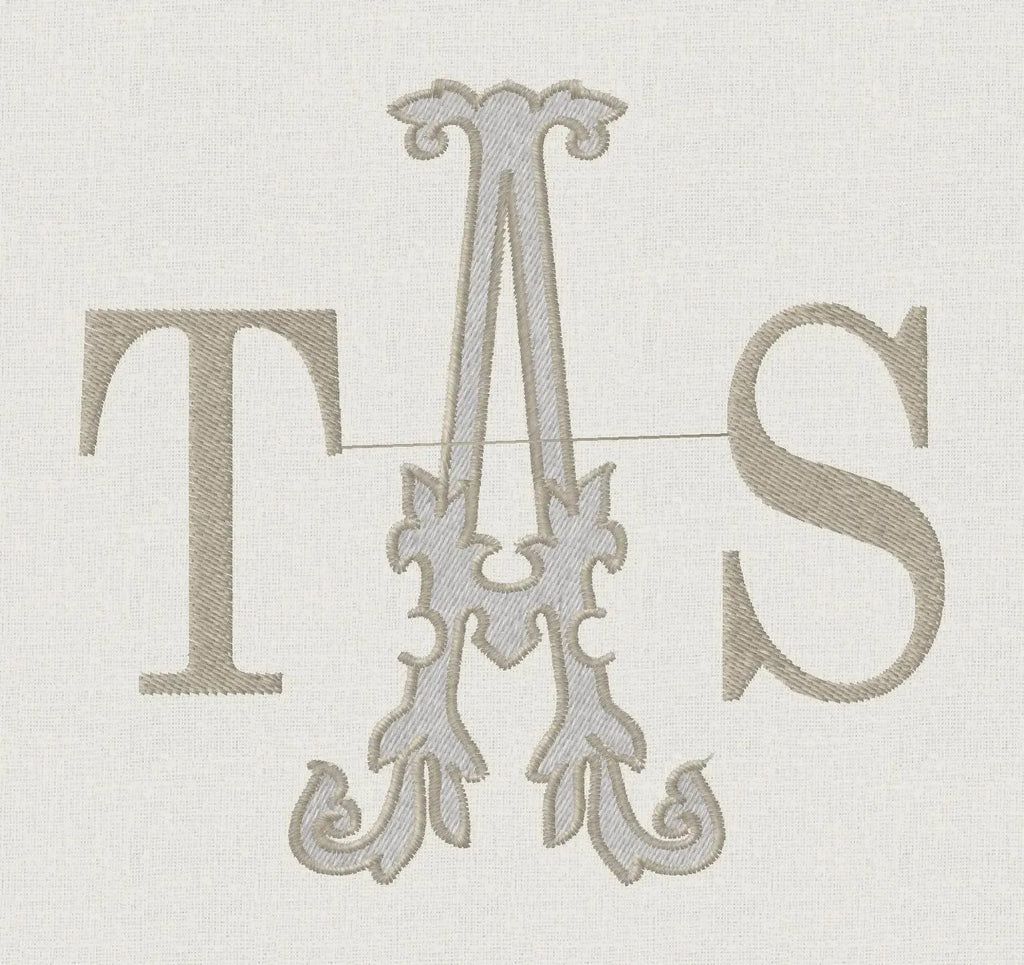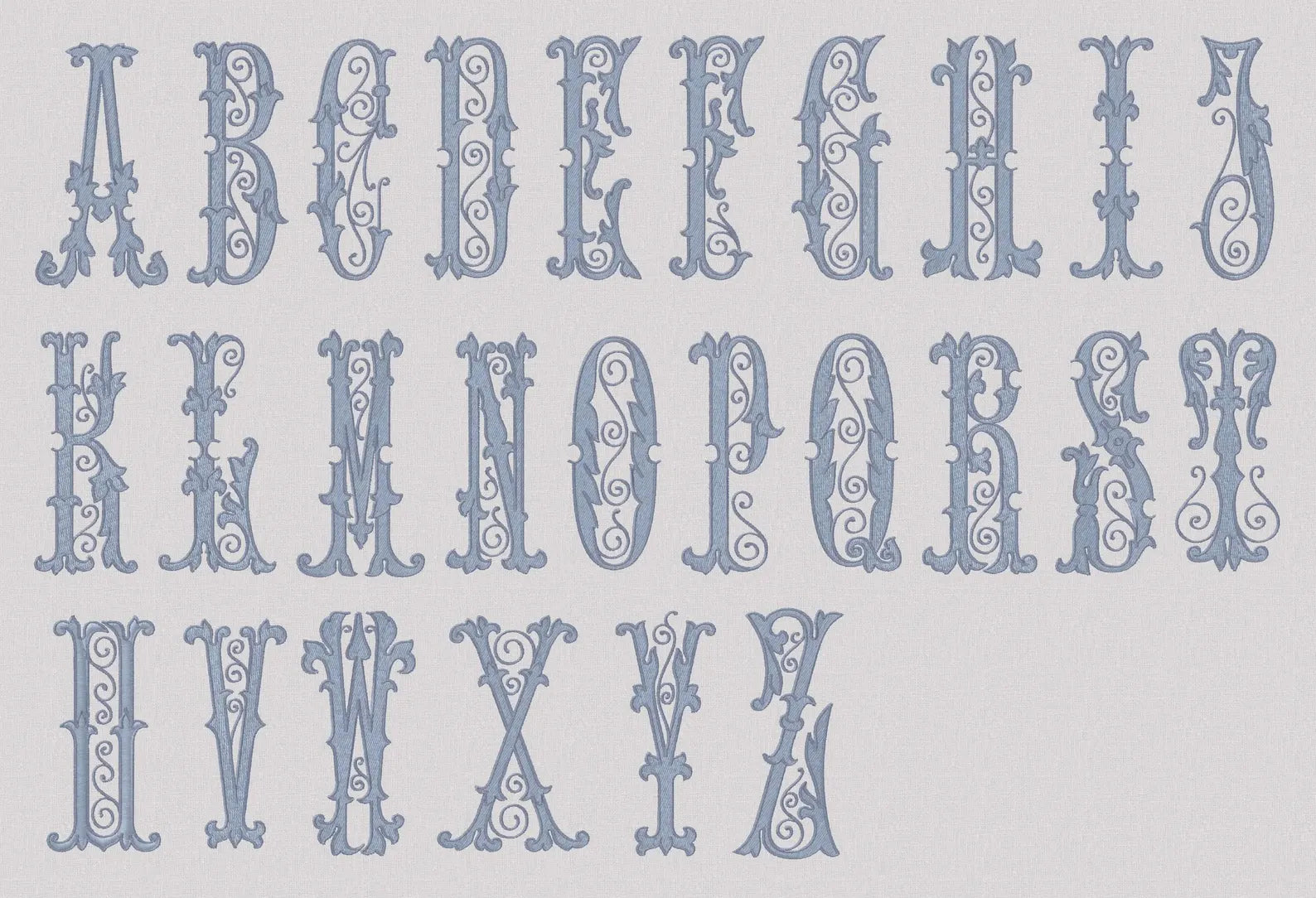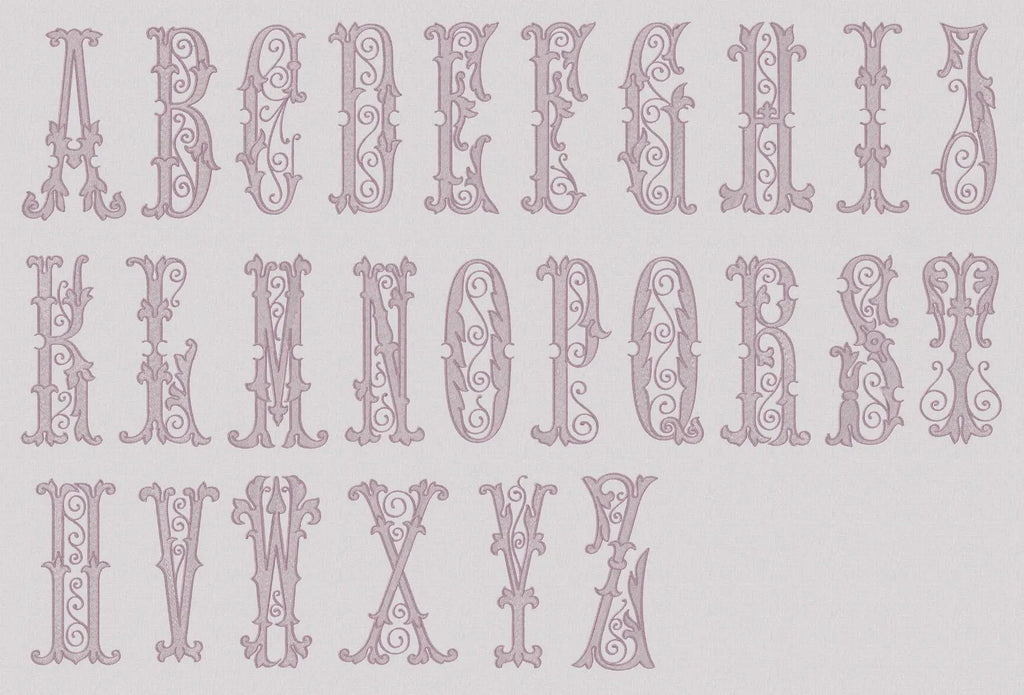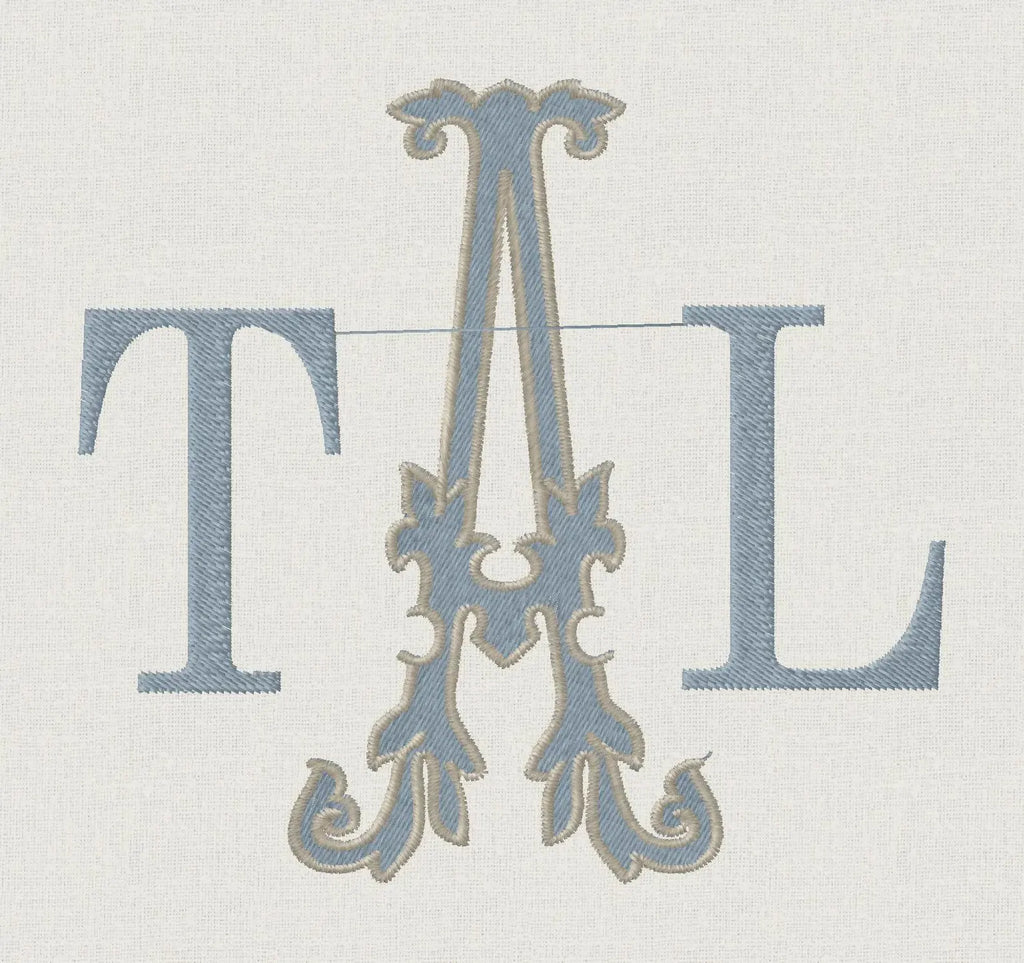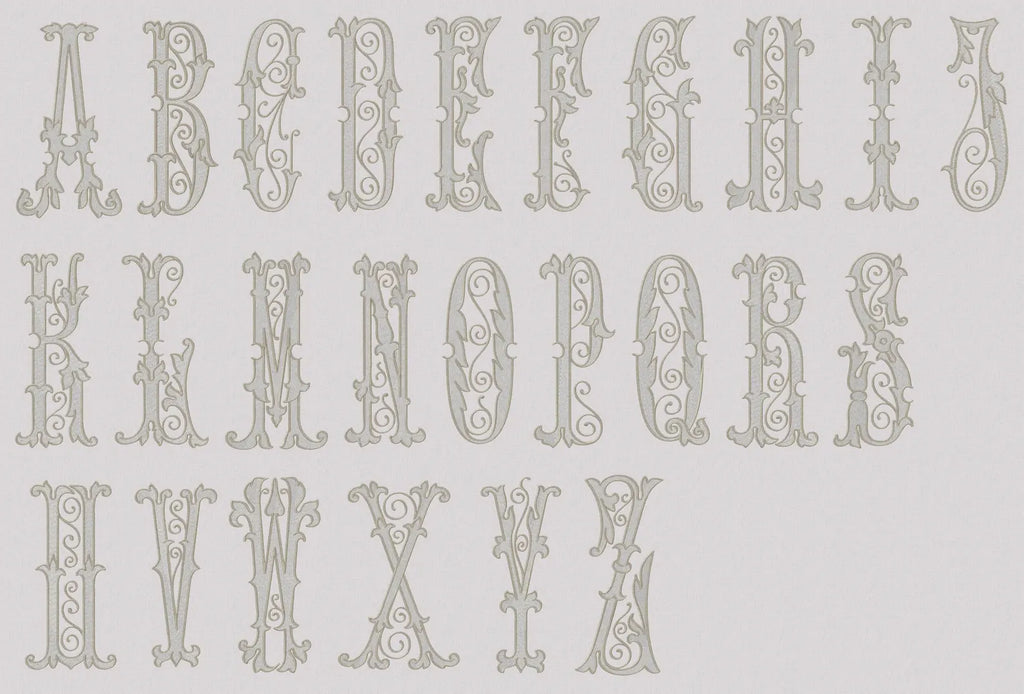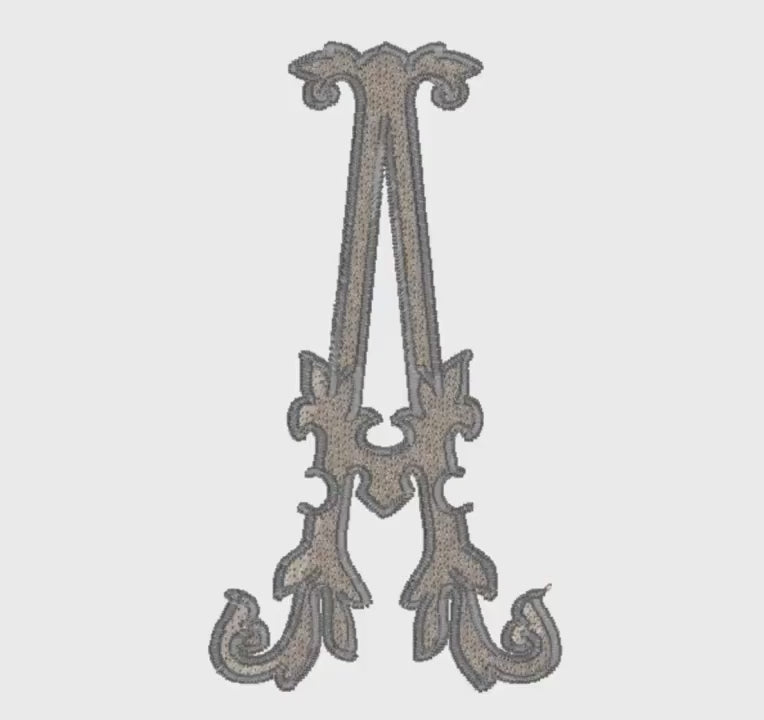
Satin & Fill- Use 1 or 2 color per letter- Can use the same color for satin & fill or 2 colors. Use alone or pair with a font you own!
*2 block letters shown on sides are not part of the Florence font collection. They are a reference image showing how Florence looks paired with other fonts.*
Florence font stitches beautifully as 1 single letter or 3 letters side by side